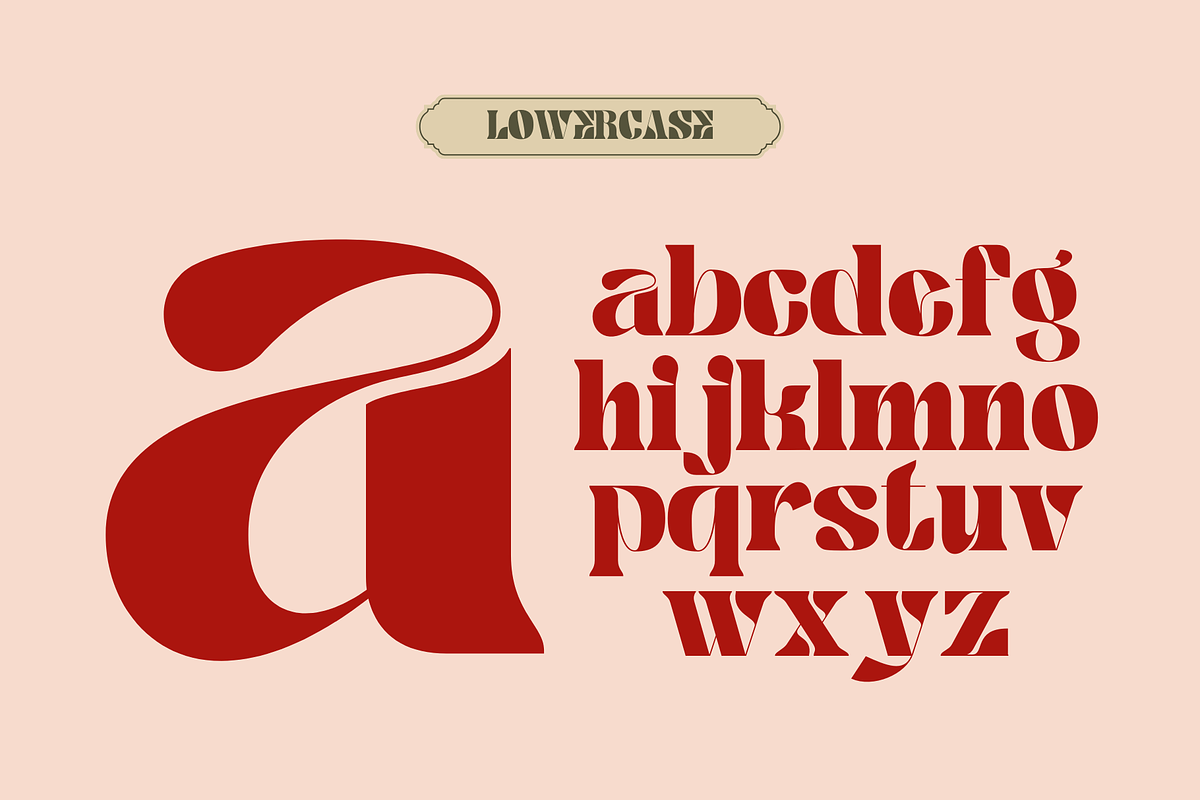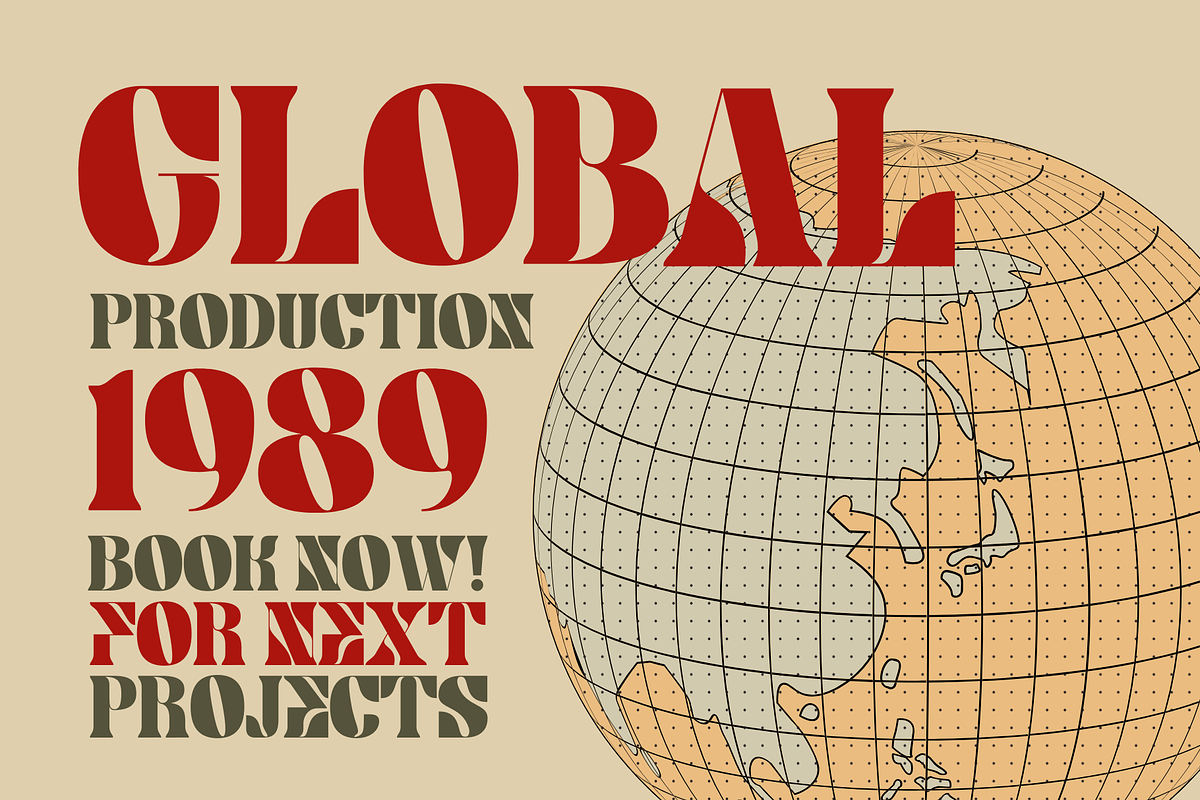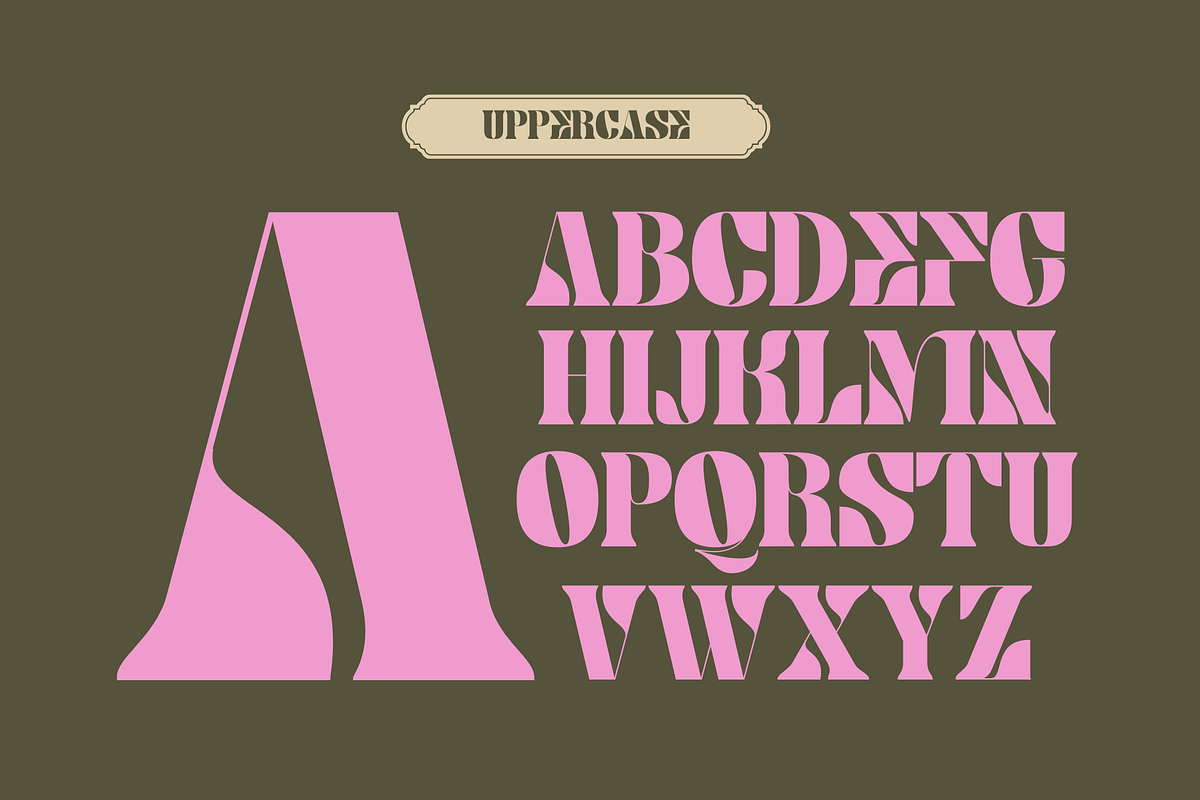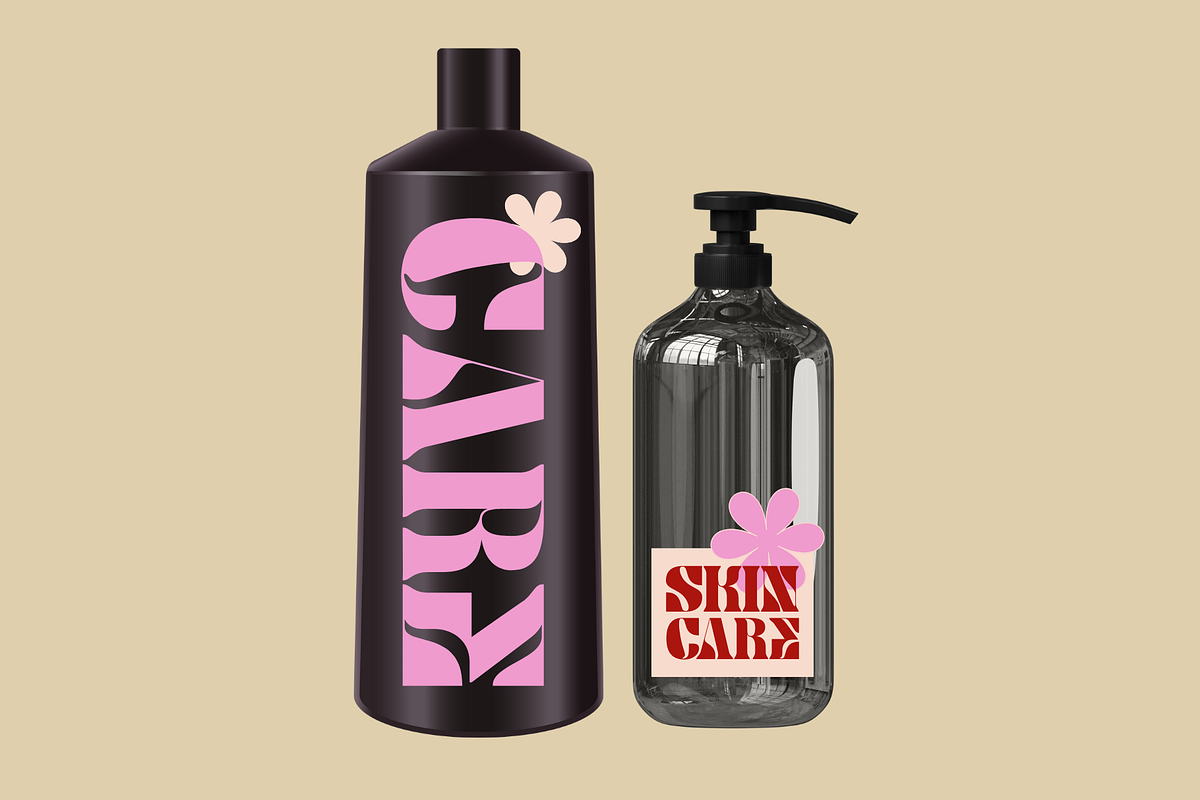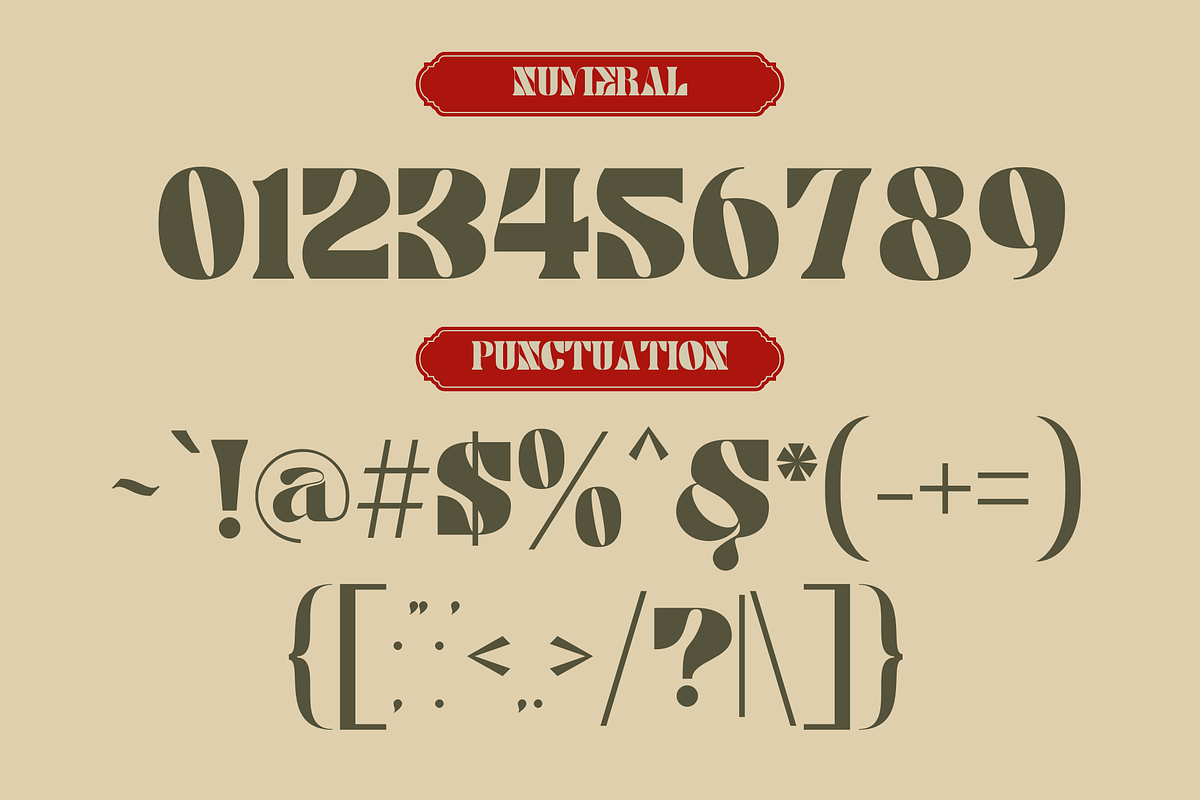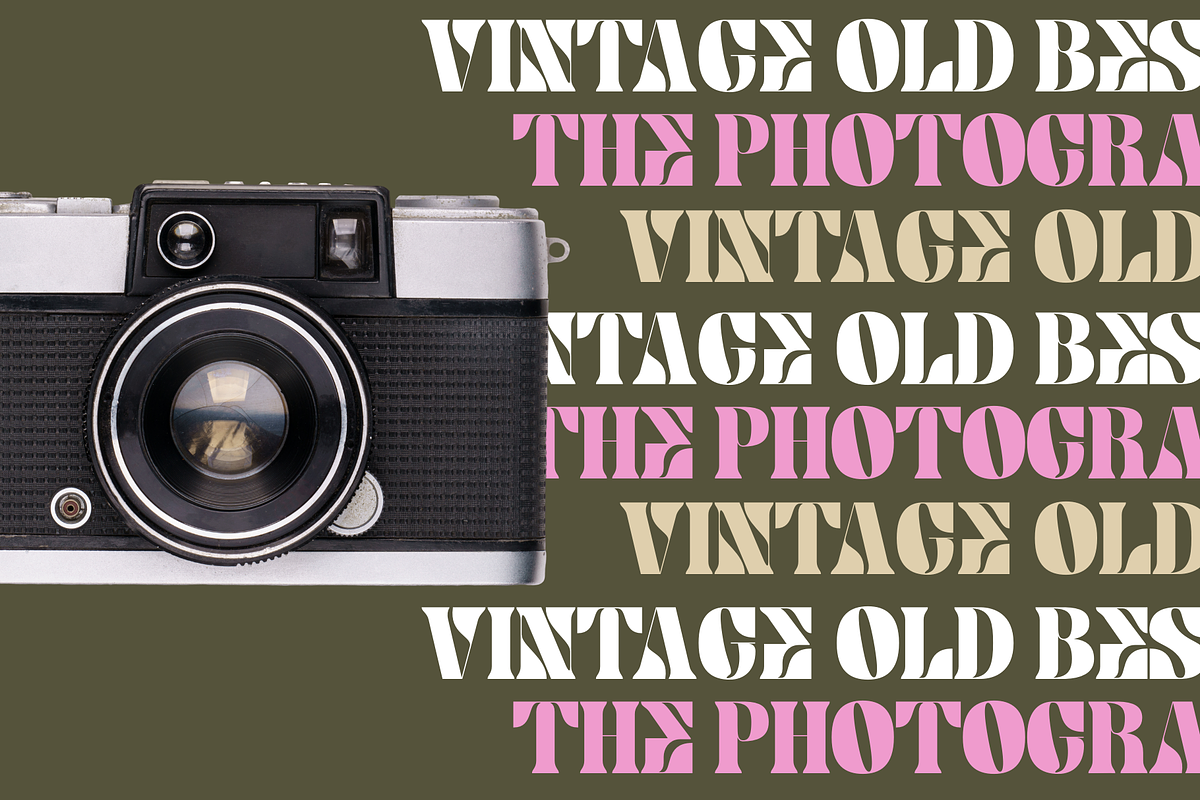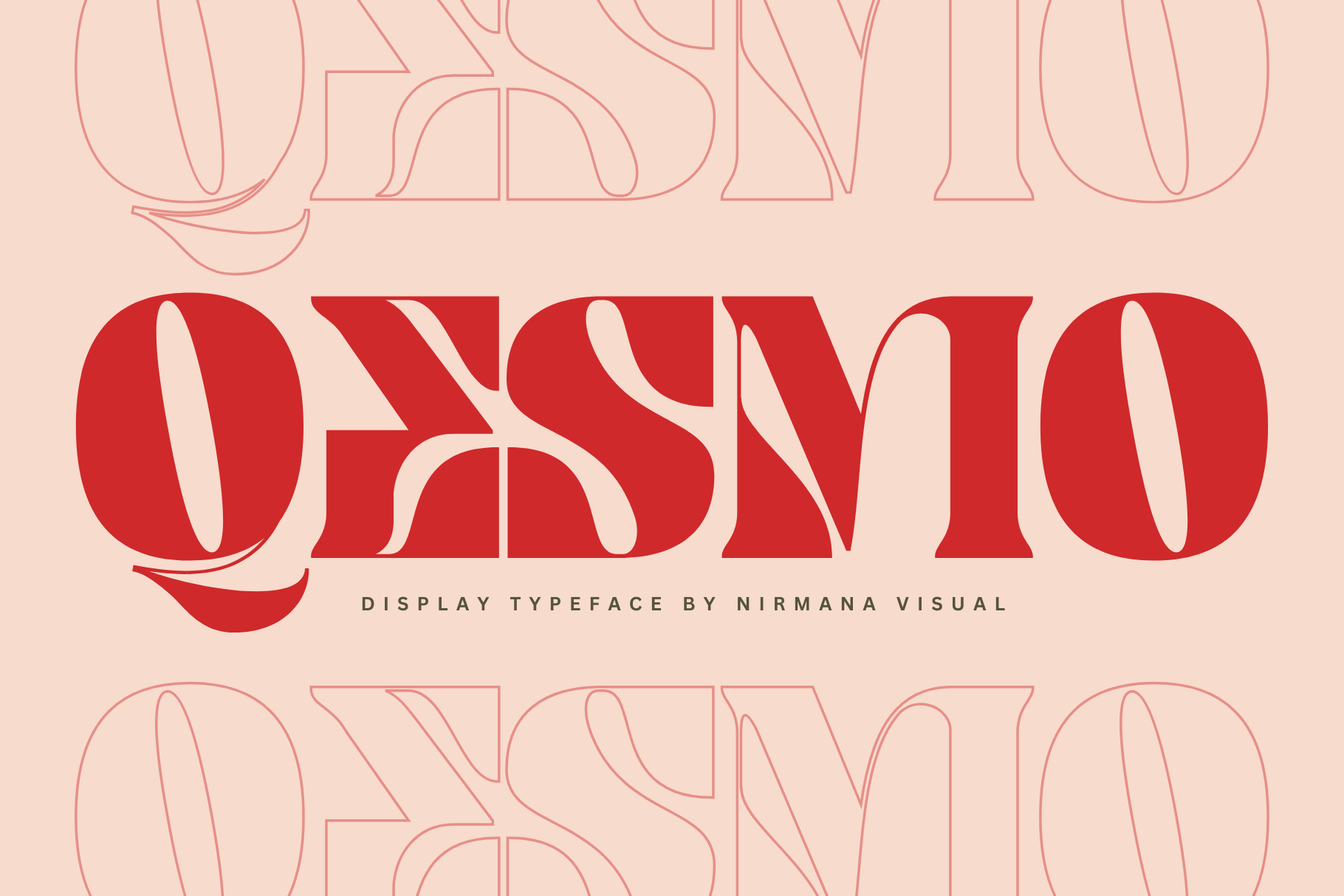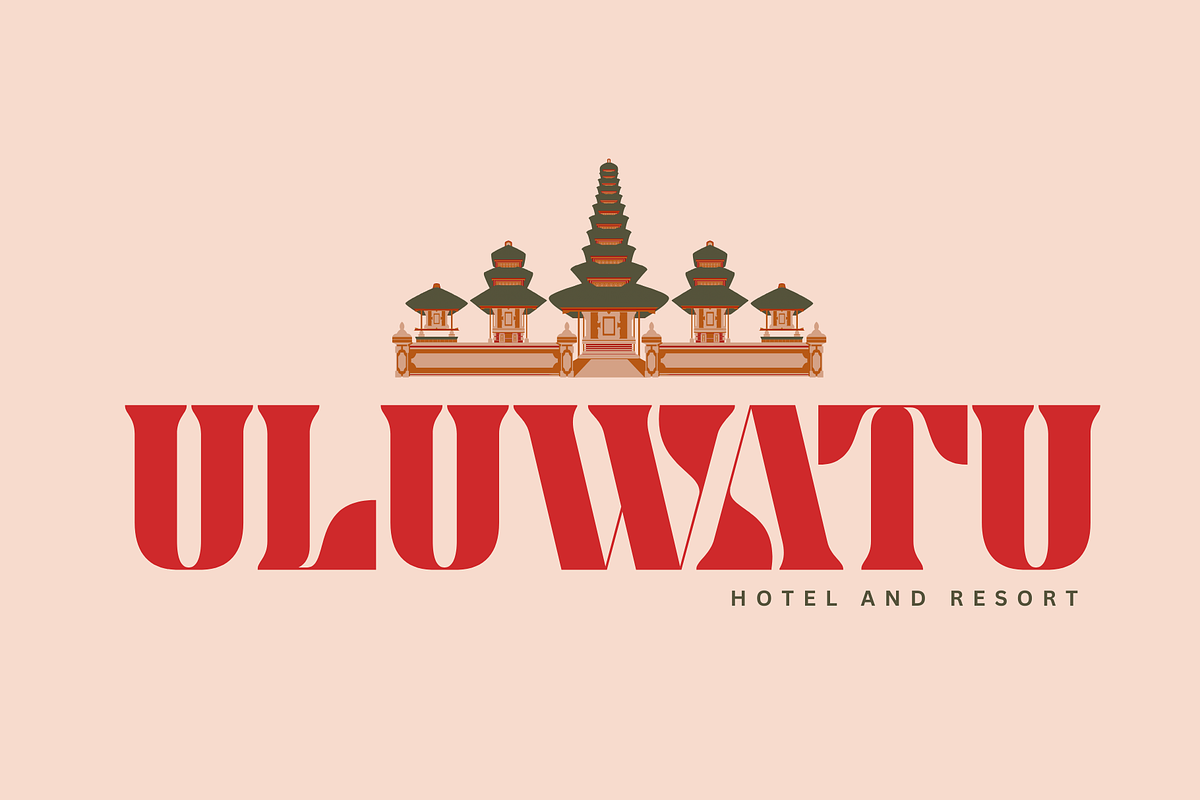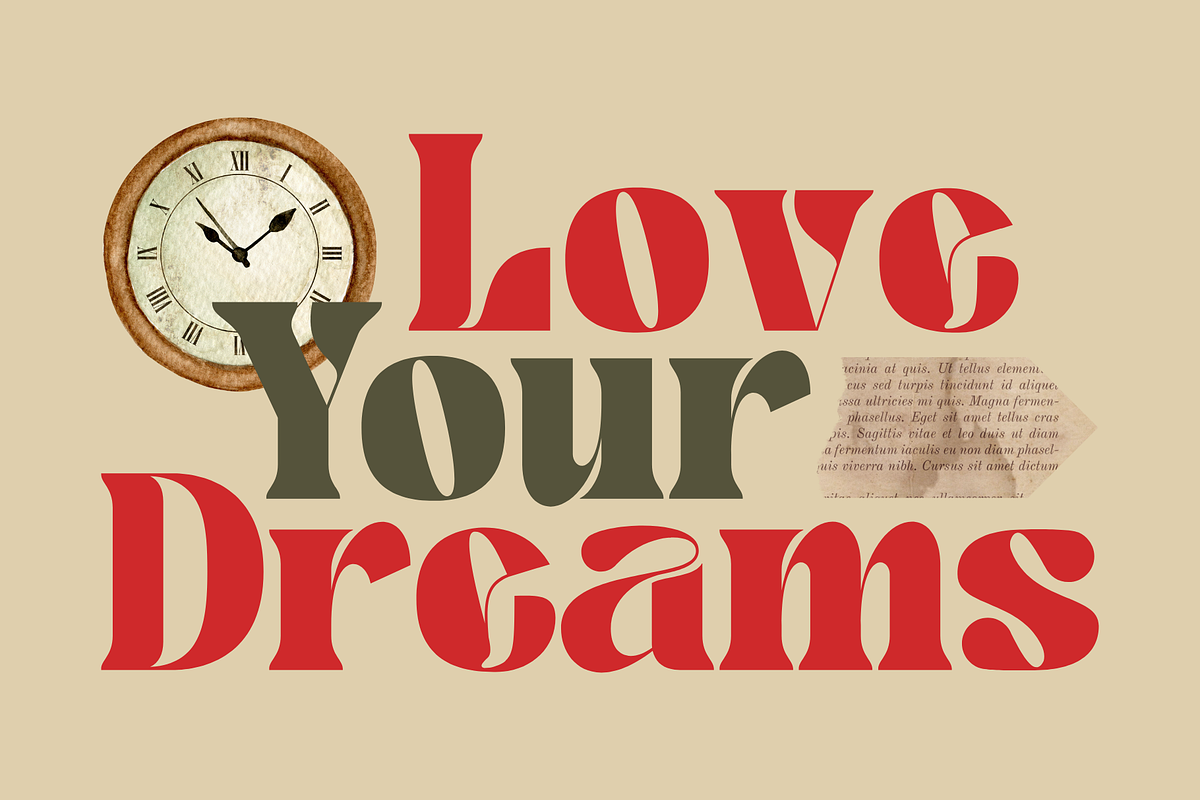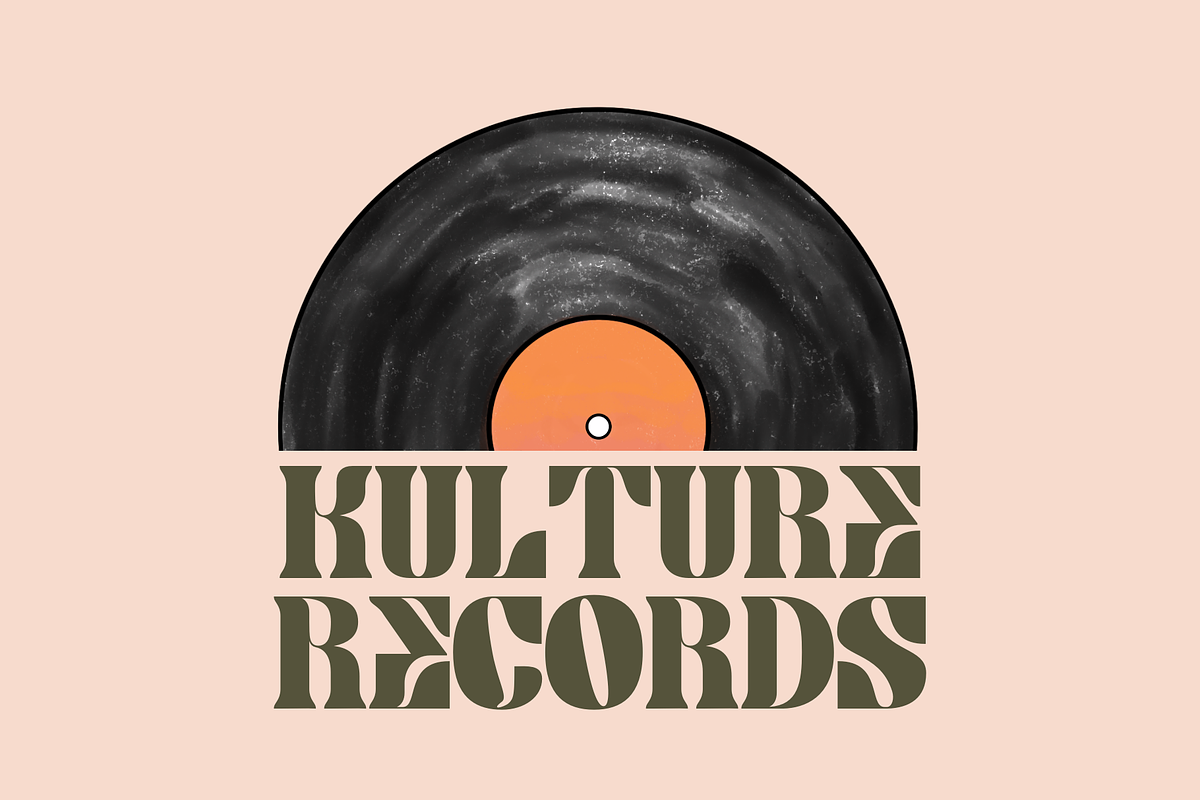
Retro Qesmo - Logo Bold Font
Retro Qesmo Font offers beautiful typographic harmony for a diversity of design projects, including logos & branding, social media posts, advertisements & product designs.